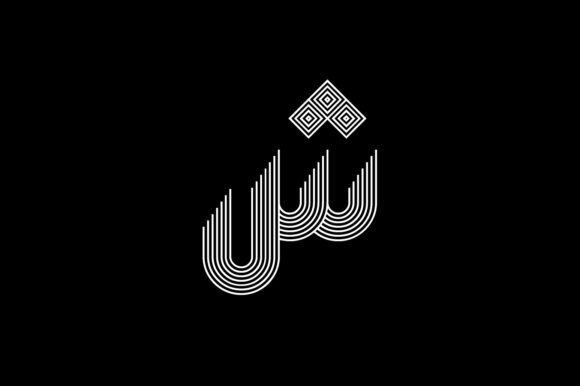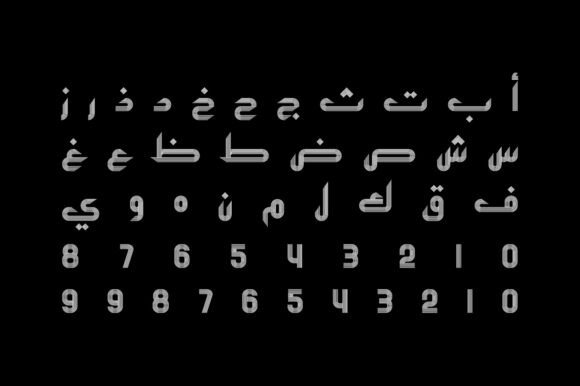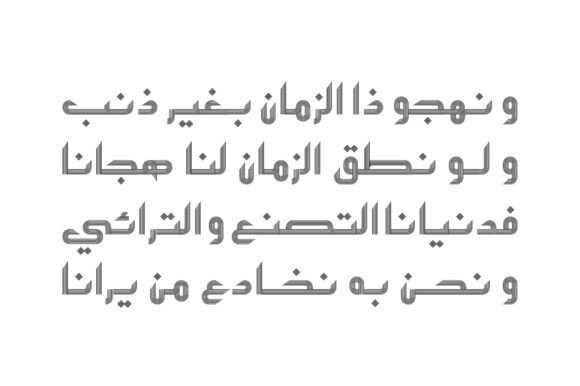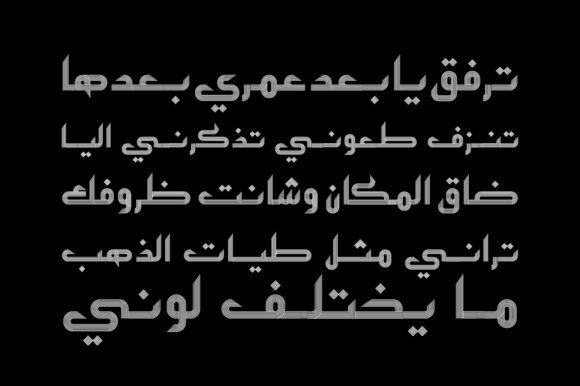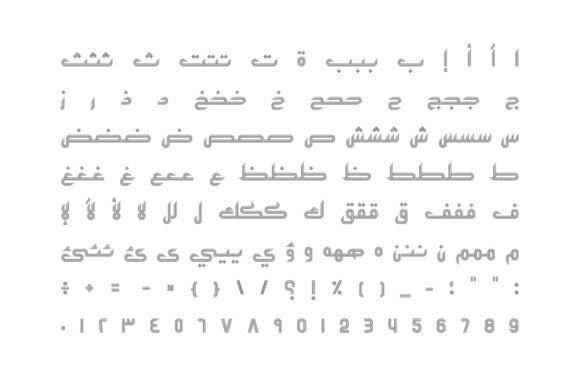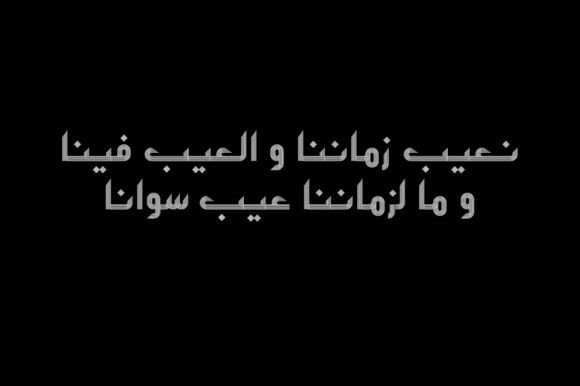
Have you ever been in the middle of a design project, staring at a blank page, and suddenly, an idea strikes you? The world seems to slow down, and all you can think about is bringing that vision to life. For designers, those moments are the spark that sets creativity ablaze. And for some, that spark comes in the form of an extraordinary font – the Atyaaf Font.
This Arabic display font is more than just a beautiful design element; it’s a masterclass in optical illusions. With its unique design that incorporates seven parallel lines, Atyaaf Font creates an intriguing effect that shifts and changes depending on the point size. Whether you’re working on a web design or a print project, this font is sure to captivate your audience and elevate your design to new heights.
For designers, Atyaaf Font is a valuable tool that can add a touch of sophistication and creativity to any project. Its versatility and unique design make it an ideal choice for contemporary designs, and its seamless integration with both web and print applications makes it a must-have in every designer’s toolkit.
Atyaaf Font Key Features
- Font Family: Atyaaf is a modern Arabic font designed for various applications, including digital media, advertising, and publishing.
- Character Count: Atyaaf font contains a comprehensive set of characters, including Latin and Arabic scripts, with over 1,000 glyphs to cater to diverse language requirements.
- Unique Characteristics: Atyaaf font features a unique blend of traditional Arabic calligraphy and modern design elements, providing a sophisticated and elegant look for Arabic typography.
Atyaaf Font Review
Overall, I found Atyaaf Font to be an interesting and unique addition to the world of typography. ✨ One of its standout features is its versatility, with a range of weights and styles that make it suitable for various design applications.
Here are some of its key strengths:
- ✨ Atyaaf Font has a modern and elegant aesthetic that can add a touch of sophistication to any design.
- ✨ The font’s bold and italic styles are particularly well-suited for headlines and titles.
- ✨ The font’s large character set includes a wide range of languages, making it a great option for multilingual designs.
- ⚠️ At certain font sizes, the Atyaaf Font can appear a bit too condensed, which may affect readability.
- ⚠️ The font’s italic style can sometimes look a bit too extreme, which may not be suitable for all design applications.
Overall, I would recommend Atyaaf Font to designers who are looking for a unique and modern typographic solution. While it may not be perfect, its strengths far outweigh its limitations, and with careful selection of font sizes and styles, it can be a great addition to any design project.
Atyaaf Font is ideal for creating elegant and sophisticated designs. Some common use cases include:
- Typography-based art and graphics